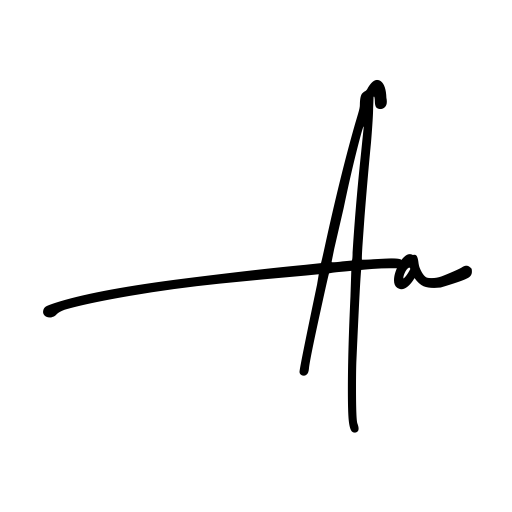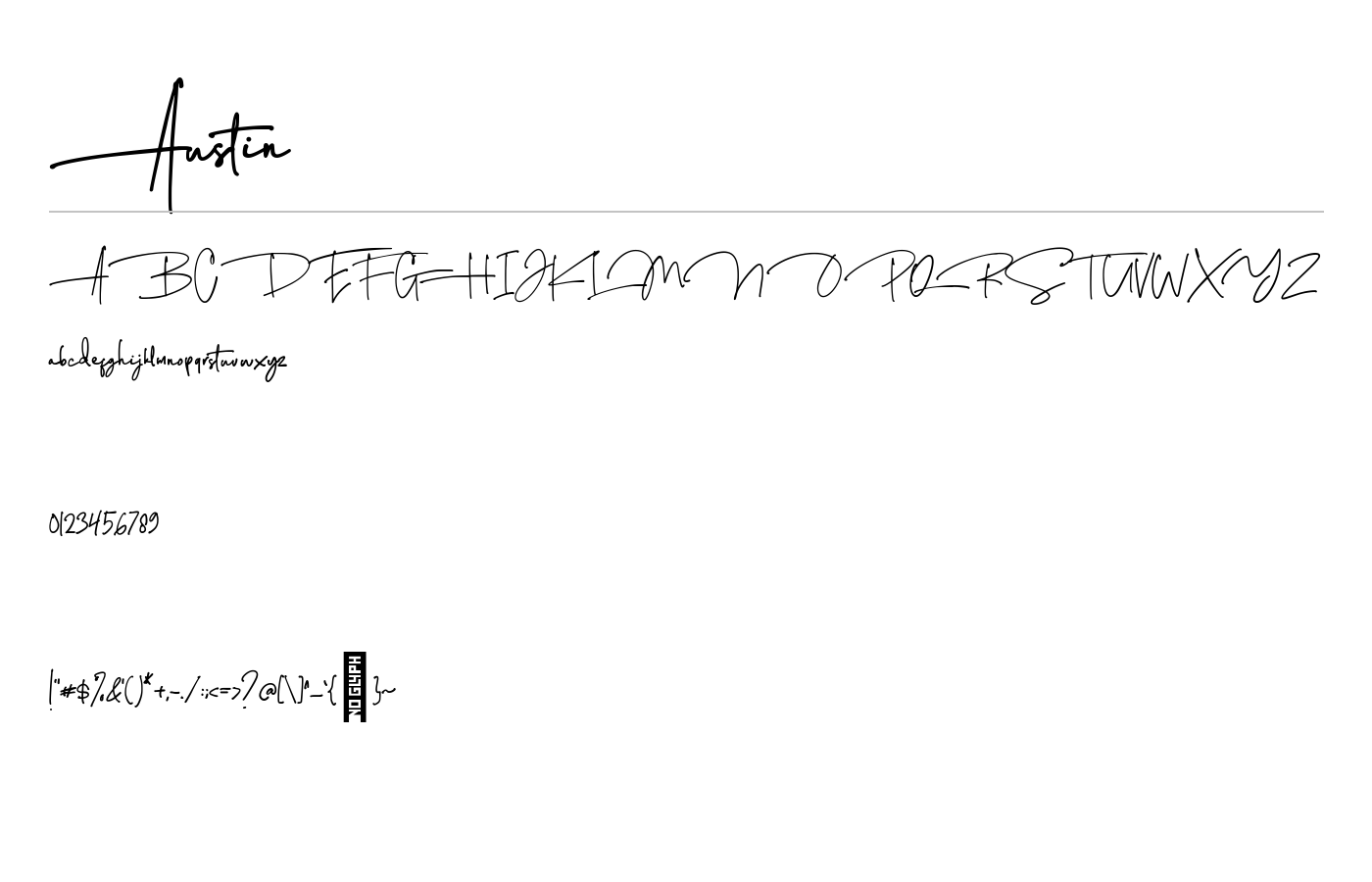
Austin is a slender, handwritten script font with a light, airy feel and tall, narrow letterforms that convey a casual yet elegant personality. Its loose, flowing strokes and distinctive, slightly angular shapes make it perfect for creative branding, invitations, or stylish headlines where a personal, artistic touch is desired. This font works best in designs that aim for a modern, sophisticated vibe with a relaxed, handcrafted look.
Austin Font
| Designer | Agung Rohmat |